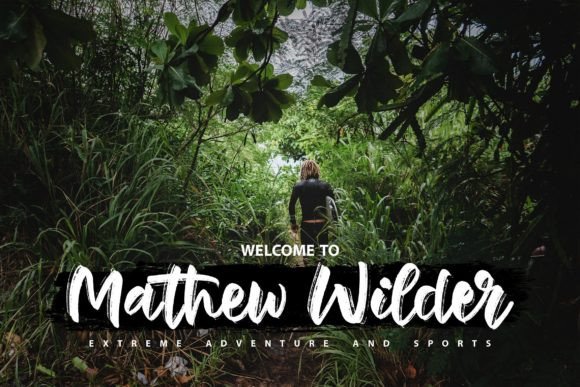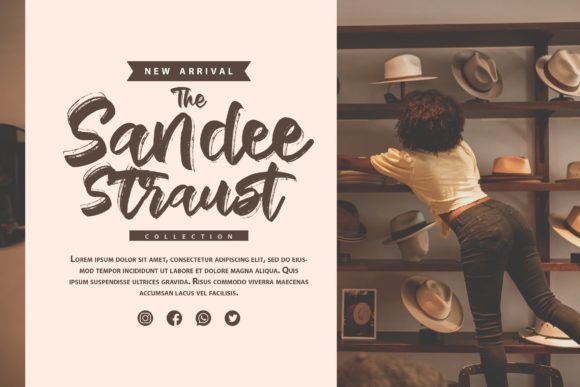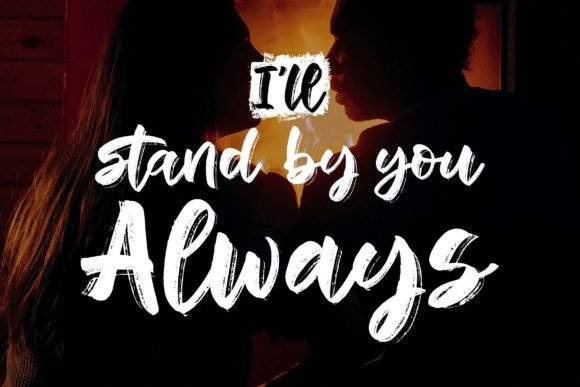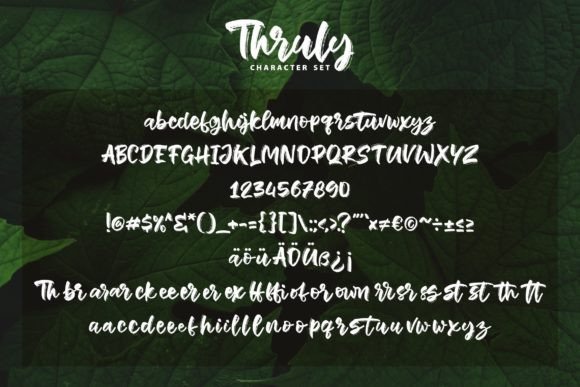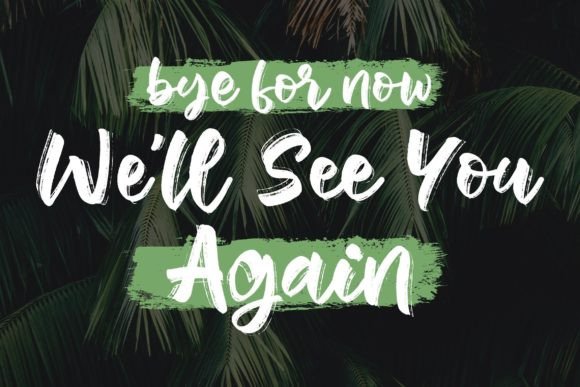
Thruly Font
About Thruly Font
“Thruly” is a font that exudes fun and assertiveness with its handwritten brush style. Its contemporary and fresh design makes it a versatile choice for a wide range of creative projects. Whether you’re working on branding, advertising, packaging, social media graphics, or any other design endeavor, “Thruly” has the ability to enhance your creations and make them outstanding.
The playful and assertive qualities of “Thruly” make it perfect for designs that aim to convey energy and creativity. Its handwritten brush strokes create a sense of spontaneity and dynamism, making it ideal for projects that need a vibrant and lively vibe. Whether used in headlines, titles, or promotional materials, this font adds a touch of excitement, ensuring that your message is conveyed with enthusiasm.
In branding, “Thruly” brings a sense of authenticity and playfulness to the identity. Its fun and assertive characters make it suitable for brands that want to convey a sense of creativity and approachability. Whether used in logos, packaging, or marketing materials, this font adds a personal touch, enhancing the brand’s connection with the audience and making it memorable.
For packaging design, “Thruly” adds a lively and energetic vibe to products. Its handwritten brush style creates a sense of movement and excitement, making the packaging visually appealing and engaging for consumers. Whether used for food products, cosmetics, or lifestyle items, this font enhances the overall aesthetics, making the products stand out on the shelves.
In social media graphics, “Thruly” becomes a valuable asset for creating eye-catching and shareable content. Whether used in Instagram posts, Pinterest pins, or Facebook covers, this font adds a touch of personality to your designs. Its assertive and fun design captures attention, making your social media presence visually appealing and dynamic, ensuring that your content is noticed and shared by your audience.
The availability of glyphs and swashes, thanks to the PUA encoding, enhances the font’s versatility. Designers can easily access a variety of alternate characters and decorative elements, allowing for creative freedom and customization. These additional glyphs and swashes empower you to create unique and personalized designs, adding a bespoke touch to your projects and making them even more outstanding.
In summary, “Thruly” is more than just a font; it’s a creative tool that brings fun and assertiveness to your designs. Its handwritten brush style, combined with its contemporary and fresh design, makes it a standout choice for a variety of projects. By adding “Thruly” to your creative toolkit, you infuse your designs with energy and excitement, ensuring that your projects are not just outstanding but also leave a lasting impression on your audience.